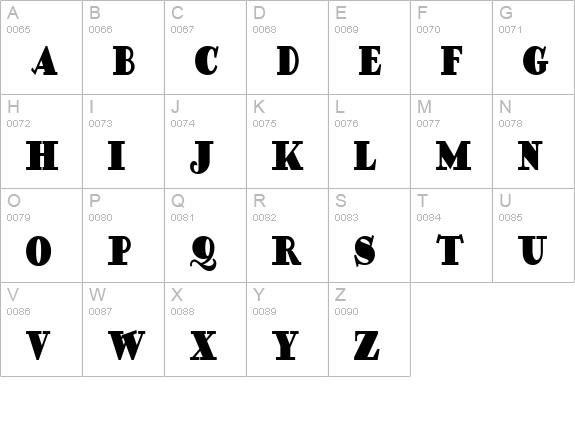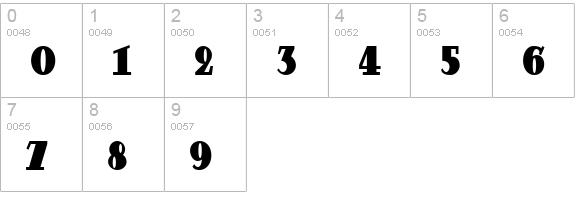
Ding Dong Daddyo NF font is a whimsical and playful display typeface that exudes a retro charm with its quirky letterforms and catchy design. This font is perfect for adding a touch of fun and nostalgia to your projects, whether it's for branding, posters, invitations, or any creative endeavor that calls for a unique and eye-catching typeface. Best of all, Ding Dong Daddyo NF font is freely available to download at FontsMarket.com, making it accessible to all designers and creatives looking to add a dash of personality to their work. Embrace the vintage vibes and lighthearted spirit of this font as you bring your designs to life with its distinctive character and style. Let Ding Dong Daddyo NF font be the perfect choice to infuse your projects with a sense of fun and individuality!